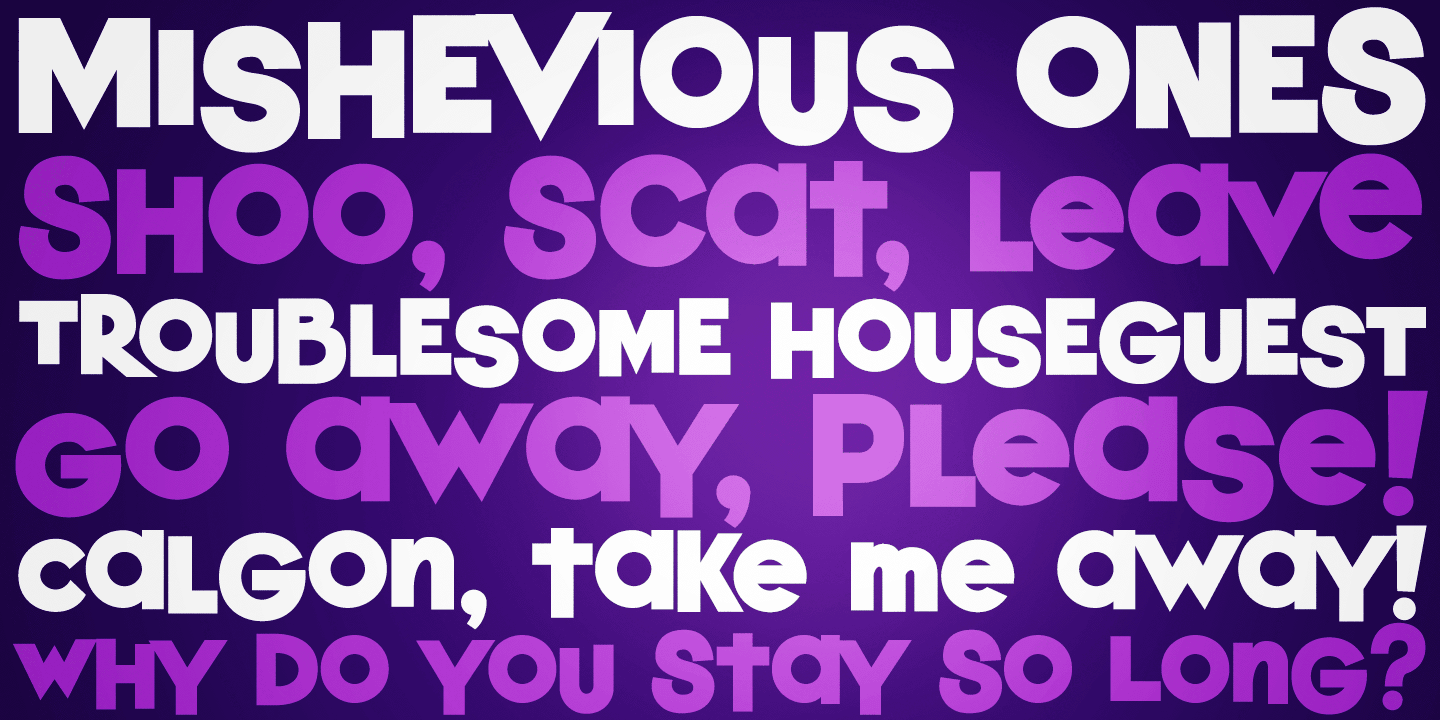
Designed by Phil Bracco, Houseguest PB is a display sans and kids font published by Pink Broccoli.
Houseguest is fun, childish, heavyweight offbeat sans serif font with an alternate caps set, and a stylistic alternates to swap in a handful of lowercase styles for a unicase mix.